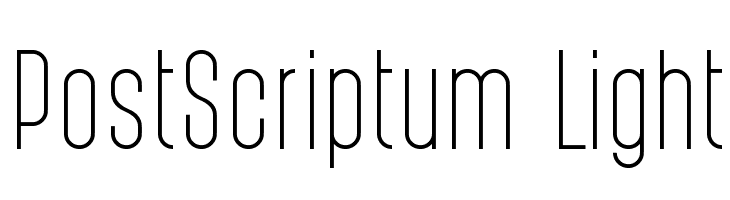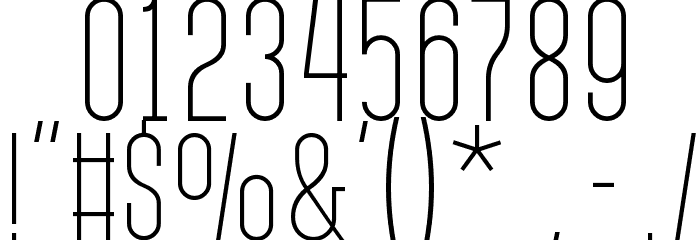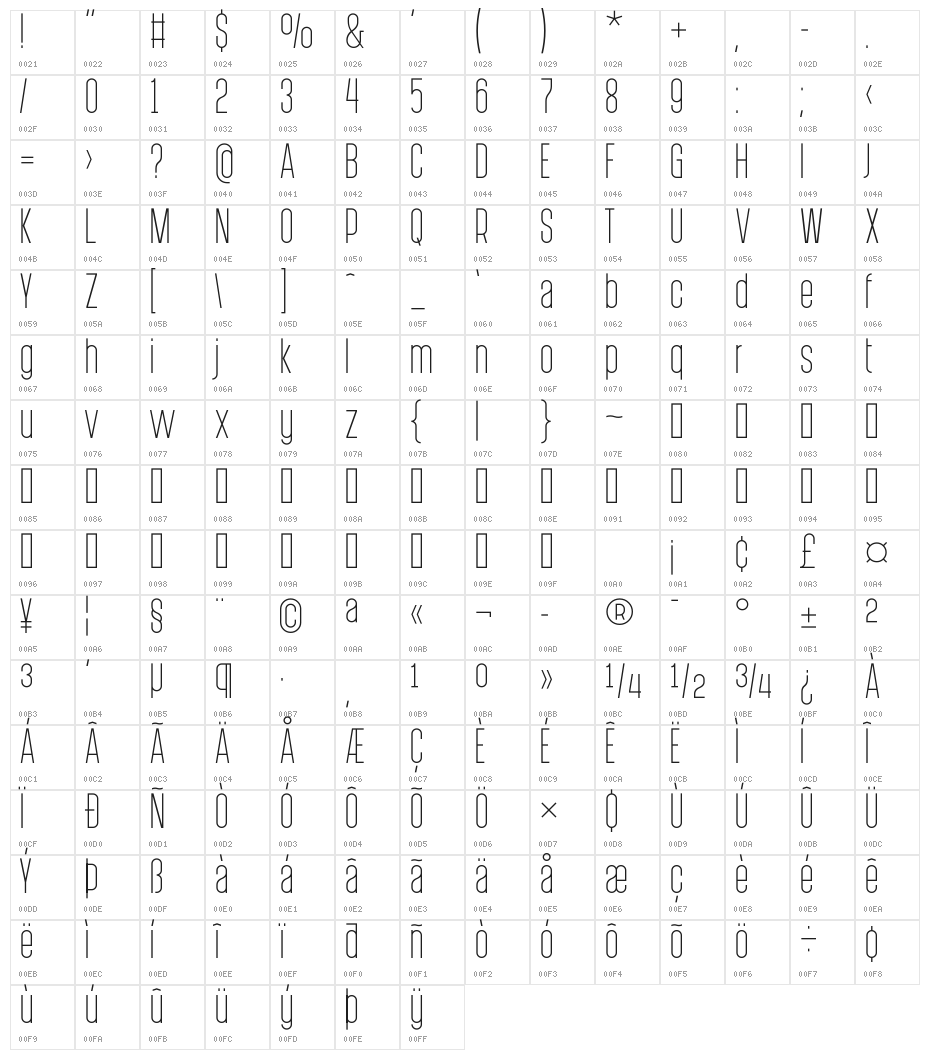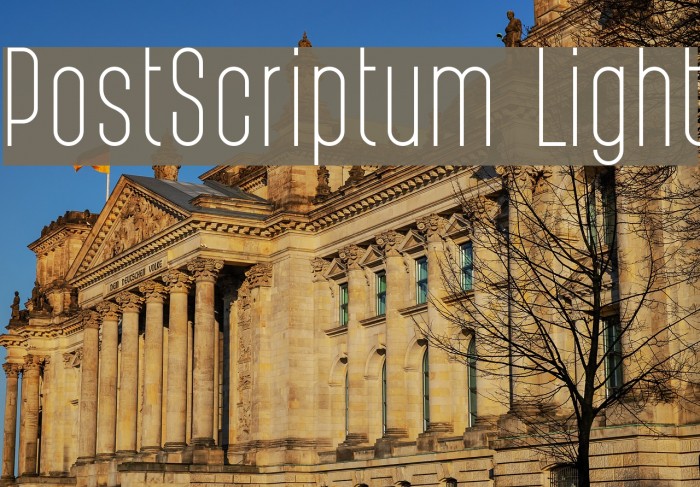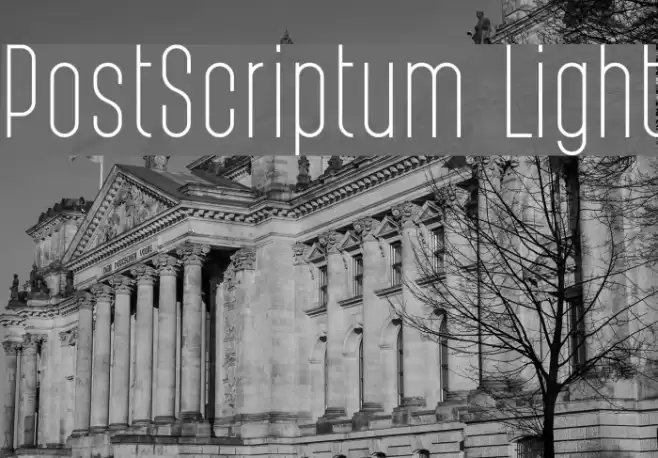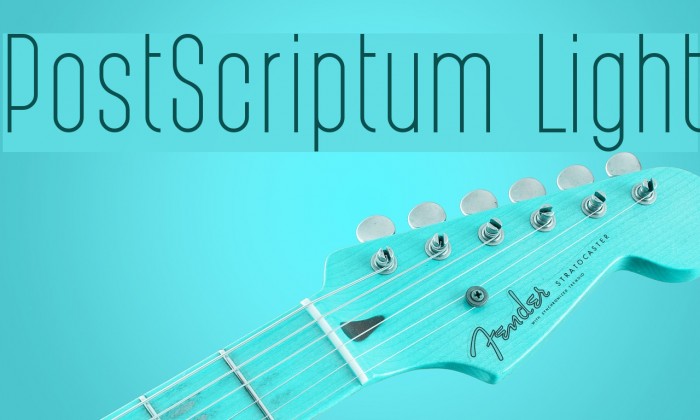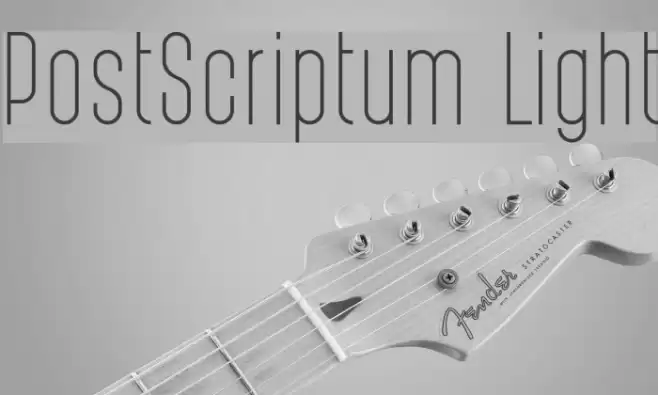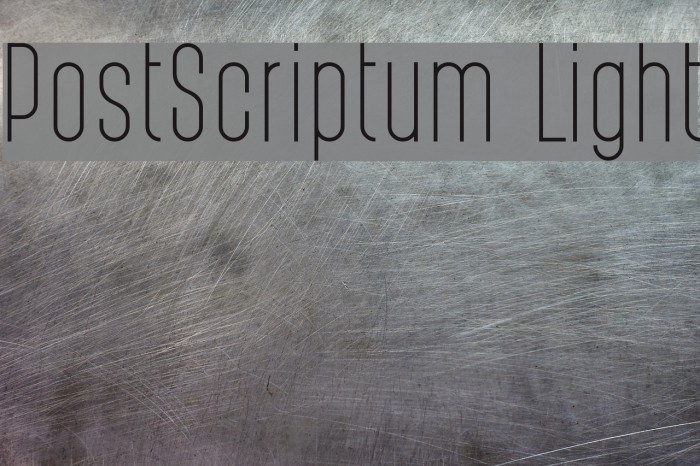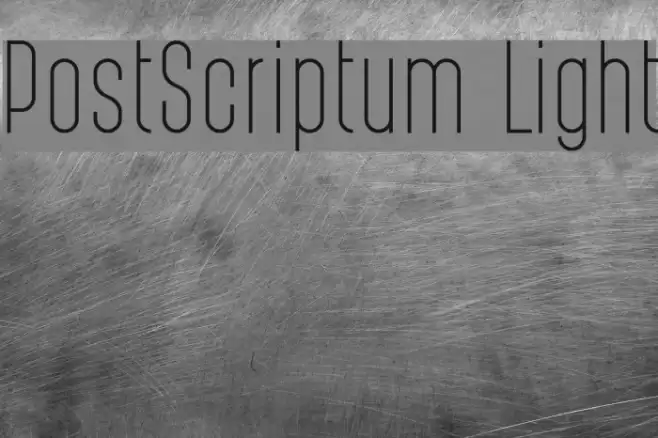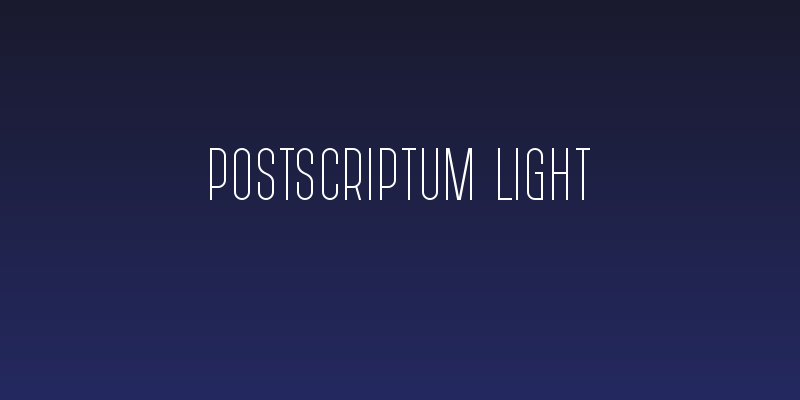
PostScriptum Light Font
PostScriptum Light Description
This font features a clean and modern sans-serif design with a light weight, making it ideal for minimalist and contemporary projects. The characters are tall and narrow, providing a sleek and elegant appearance. The uniform stroke width and lack of serifs contribute to its modern aesthetic. The font's simplicity and clarity make it highly legible, even at smaller sizes. Its geometric shapes and precise lines give it a professional and sophisticated look, suitable for a wide range of applications.